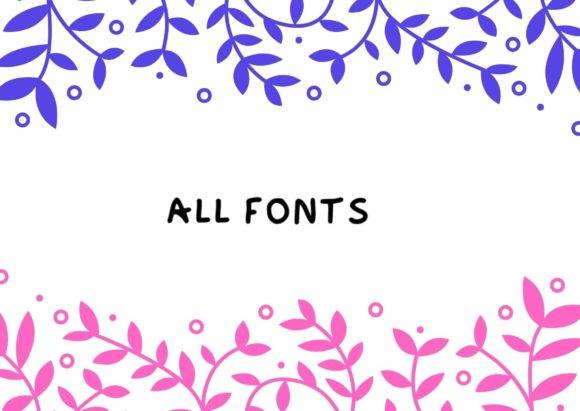
All Fonts Font for Crafting, Logos and Print Projects
This is a multi-use font crafted to support a wide range of creative applications—from DIY crafts to professional logo design and high-resolution print materials. All Fonts delivers consistent readability and stylistic clarity for text-based creations. Its versatility makes it an ideal choice for both amateur and seasoned designers alike, allowing for seamless integration across various media. Additionally, the collection features thin fonts for branding projects, ensuring that your designs maintain an elegant and sophisticated appearance. Whether you're creating eye-catching invitations or professional marketing materials, this font will elevate your work to new heights.
As a font entity, it’s designed to offer balance between personality and professionalism, making it perfect for both expressive and structured typography needs. Its versatility makes it an ideal foundation in any creative toolkit.
Built to be flexible, this font adapts across digital and physical formats with ease.
- Reliable and multipurpose for any project
- Clear and legible for both print and screen
- Perfect for both casual and business use
Q: What kind of font is All Fonts?
A: All Fonts is a versatile typeface suited for crafting, logos, and print-focused design, offering clarity and flexibility in use.
| Feature | All Fonts | Utility Font A | Craft Font B |
| Font Style | Clean multi-purpose sans/script | Functional sans-serif | Hand-drawn brush style |
| Use Cases | Crafts, branding, print design | Web headers and signage | Printable cards and apparel |